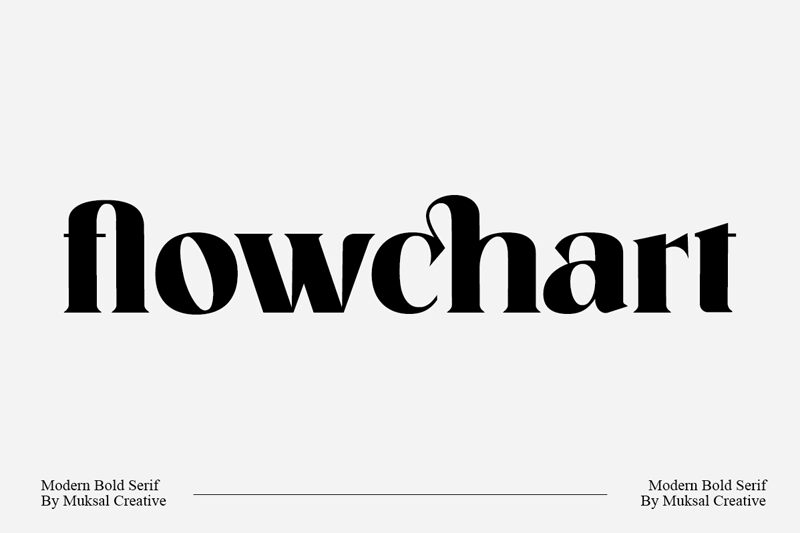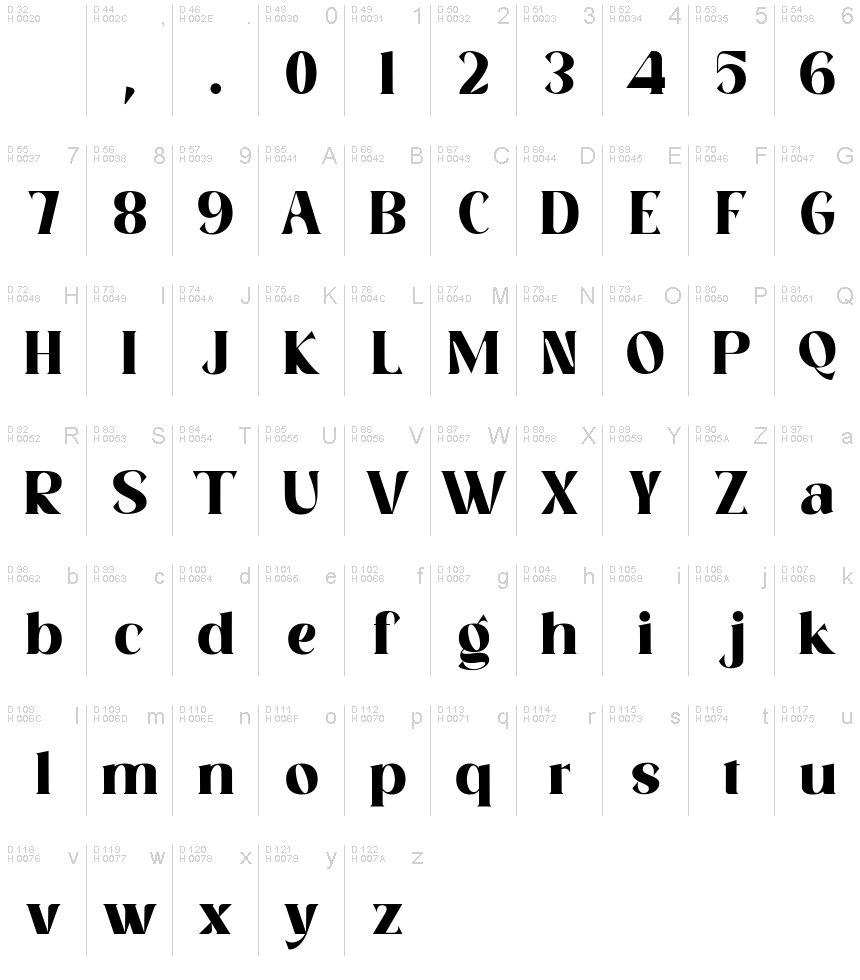
Flowchart Bold
Flowchart Bold stands as a testament to robust elegance, crafted meticulously by Muksal Creative. This member of the Flowchart font family exudes confidence through its substantial serif design, commanding attention with its assertive presence. The bold strokes lend it a sturdy foundation, while the subtle serifs add a touch of sophistication.
Its aesthetic appeal lies in the balance between impact and refinement, making it ideal for headlines, branding, and any project that demands both strength and class. Whether gracing the cover of a report or highlighting important text in an infographic, Flowchart Bold is poised to deliver messages with undeniable authority and style.